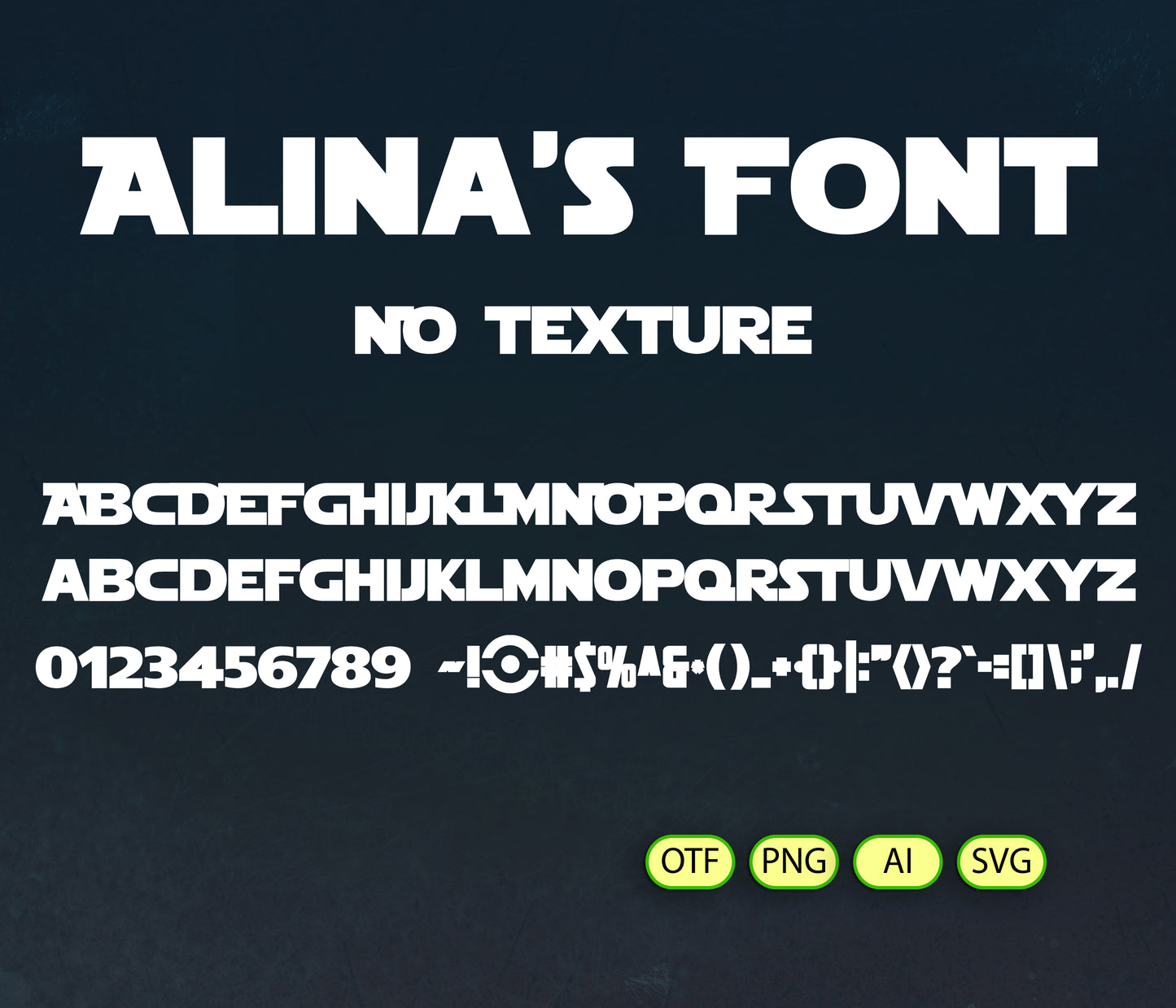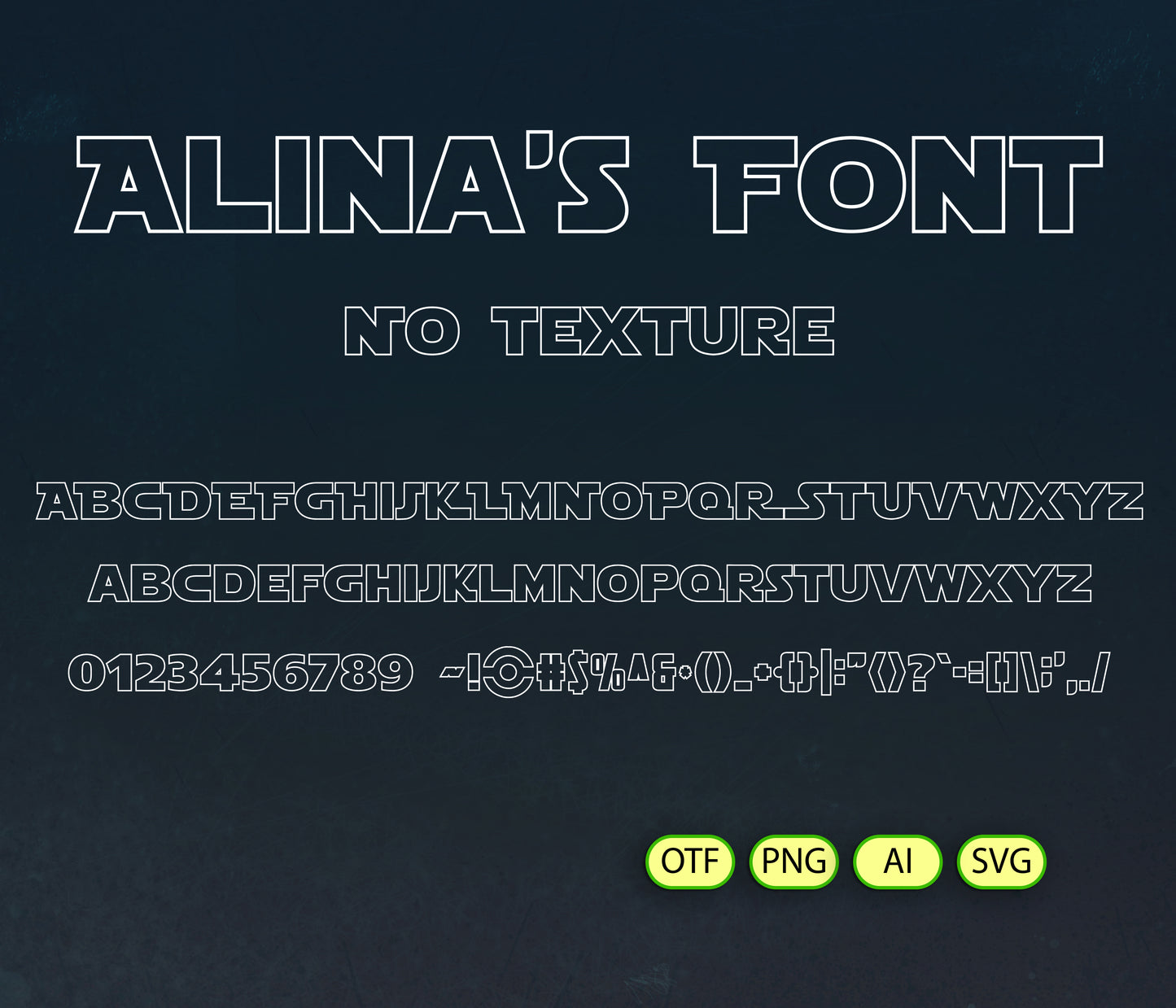
Galactic Saga Font Bundle
Immerse yourself in the epic saga of a legendary space adventure with our meticulously crafted font, designed to echo the iconic typography of this beloved series. This font is a nod to a thrilling universe, capturing the essence of its characters, adventures, and timeless storytelling. Each letter and symbol in this font collection is a tribute to the saga's visual and cultural impact, bringing a piece of that faraway galaxy into your creative projects.
What Font is the Galactic Saga Cricut Font?
Our font is a loving re-creation of a custom-made typeface from an iconic space saga logo, reflecting its bold and striking presence. Designed with precision and attention to detail, our font mirrors the standout qualities of the original, known for its impact in creative endeavors. Beyond basic alphabets, this font includes a comprehensive character set with numbers and special characters, offering a close replica of the epic saga's typography.